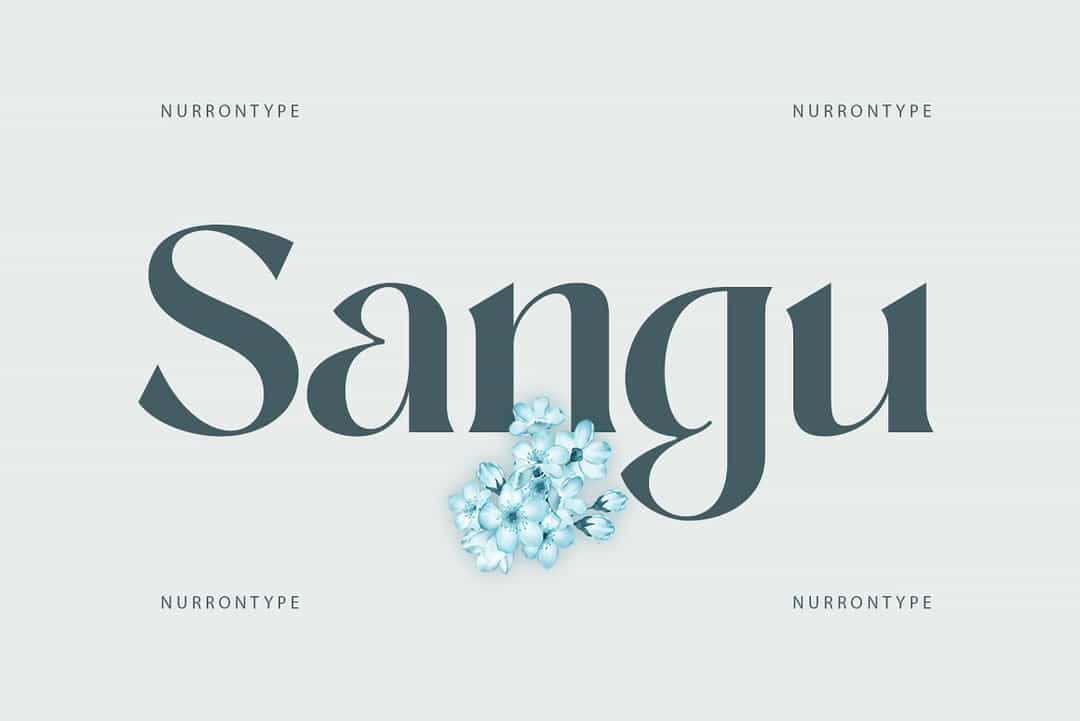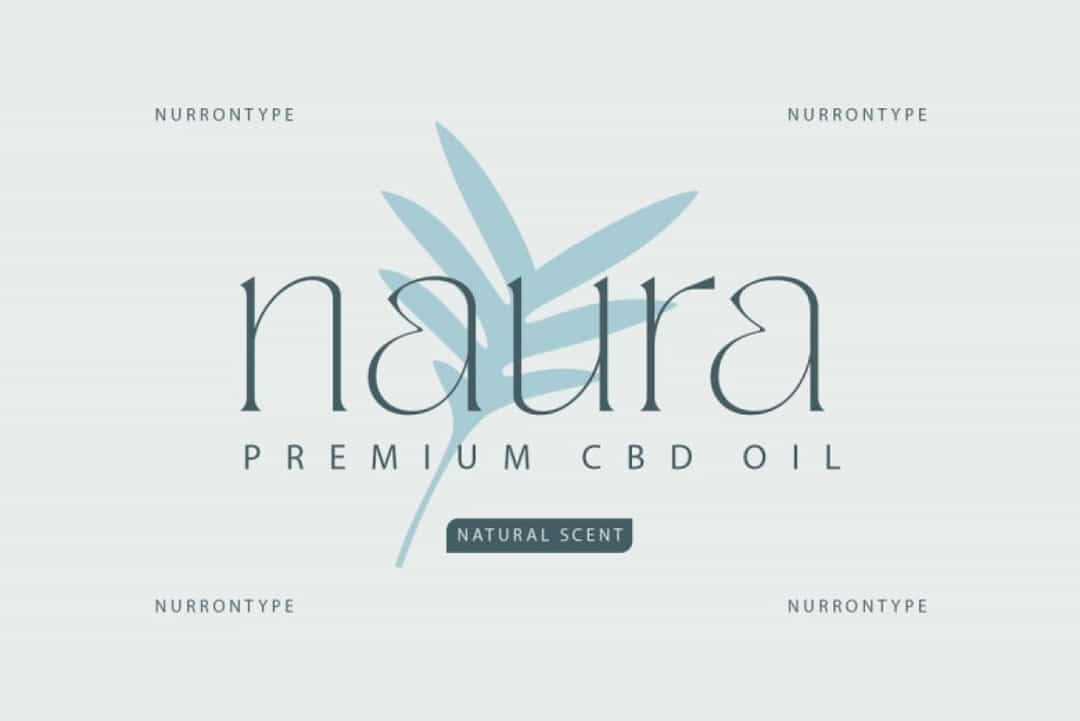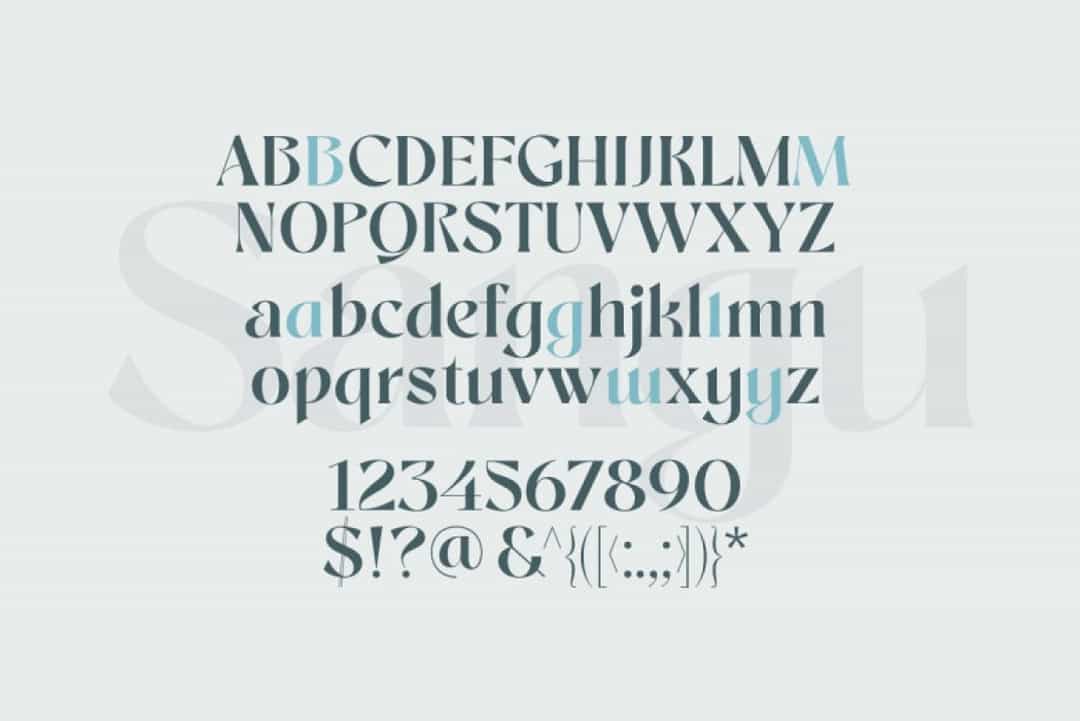
Sangu is an extremely contrast-heavy serif typeface designed to add a stylish and sophisticated aesthetic to any project. Boasting distinctive glyphs that span from light to strong weights, Sangu is an extremely flexible font, used everywhere from headlines and advertisements to body text – if you’re creating identity or branding it’s sure to help your message make an impactful statement!